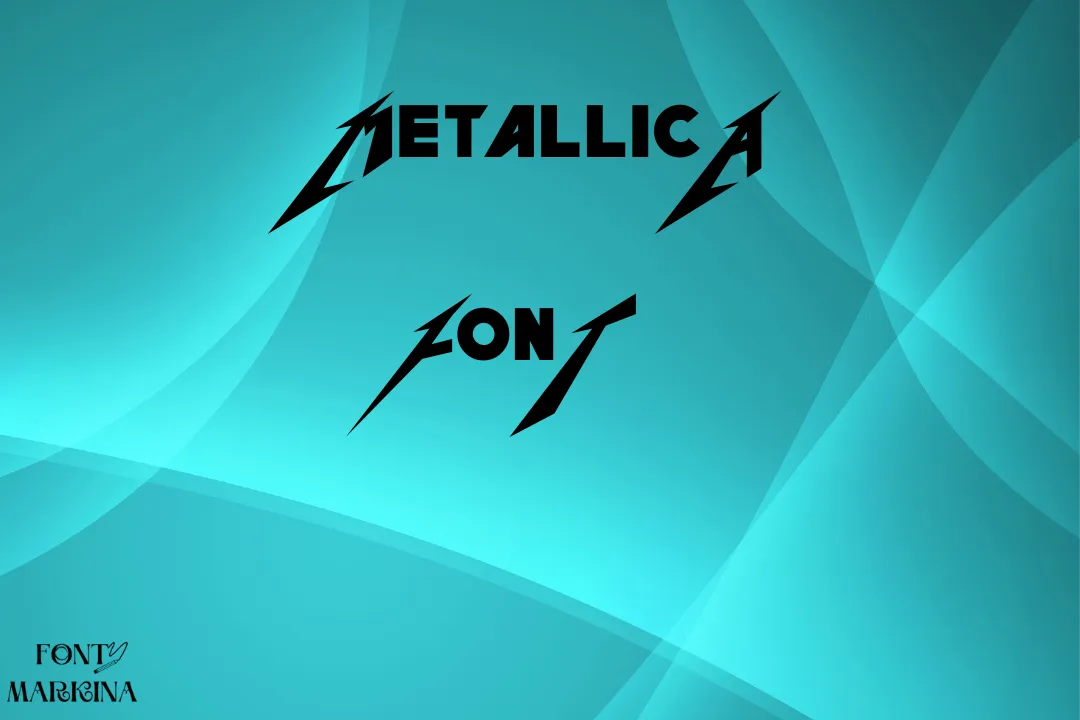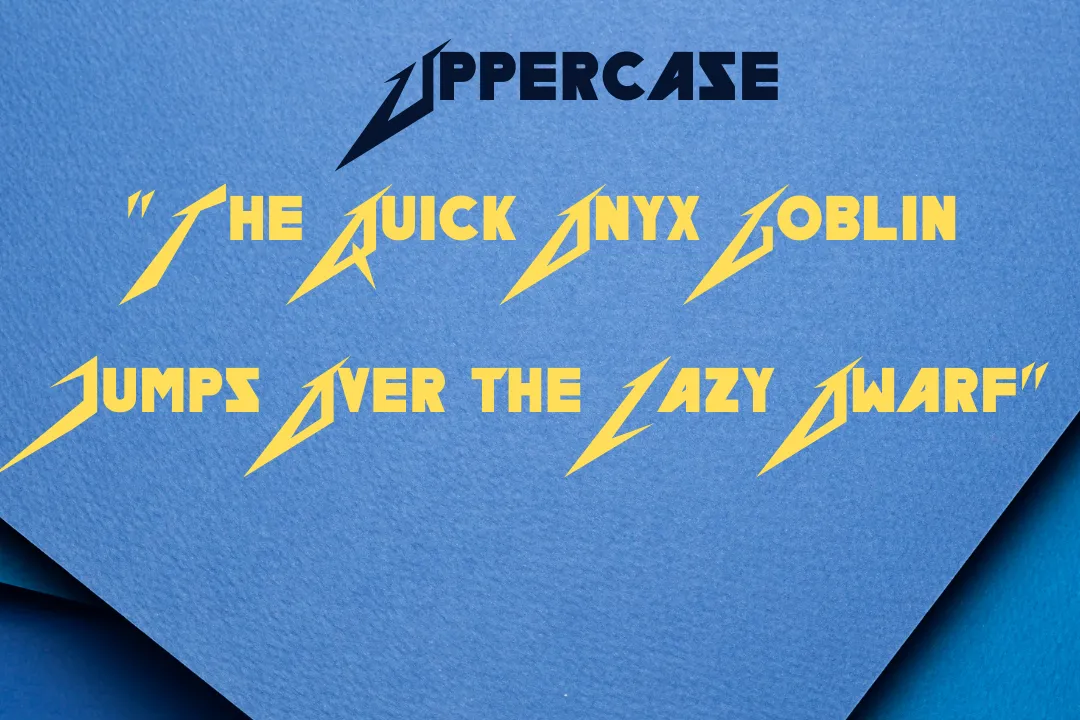
Metallica Font
Welcome to this article,  We will present it to you with a very eye-catching font. This style is known as the name of Metallica Font. It was developed by a famous American typography designer name Friedrich Peter. It has created multiple popular fonts and is being used all over the world. This typeface is one of them.
This wonderful typeface belongs to the category of the display font family. The important thing about this font is that it has two file formats, open type, and true type. This charming typeface was established in Los Angeles. This font gained popularity in a very short time. You can use its copy-and-paste procedure in your assignments and prepare easily.
The online generator tool will produce your project fashionable and engaging. It transforms your simple layouts into modern qualities. The pairing quality of this typeface is also very good. Any author compares it to many other font styles and comes up with a brilliant design. Similar fonts of this texture are Bertram Font and Adobe caslon Font.
Uses of Metallica Font
Metallica Font has an excellent surface look appearance for the spectators. It is an original font with a lot of similarities and consists of different characters and weights. Because of this reason, you can use it in multiple fashionable designs.
This typeface character looks very stylish and designers use it in logo design, various posters and some banner companies use it in their projects. However, you should not use it for long paragraphs, as it was primarily designed for stylish design, not for sections. You can use it for titles, headings, and many more like these projects.
It is very suitable for advertisement projects, newspapers, old magazines, card designs, and different other projects. You can be utilized it anytime and in any situation in your projects. The Astro Creep font is available for use in combination design purposes.
What is the Metallica font called?
The typeface utilized in the Metallica logo is called “Pastor Of Muppets.”
Who made the Metallica logo?
According to the record, the Metallica Font was invented by the band’s lead singer and guitarist James Hetfield.
What is the Metallica symbol?
The Metallica font as we know it today is a bold black description in all uppercase letters with the extended and flared to both sides vertical lines of “M” and “A”.